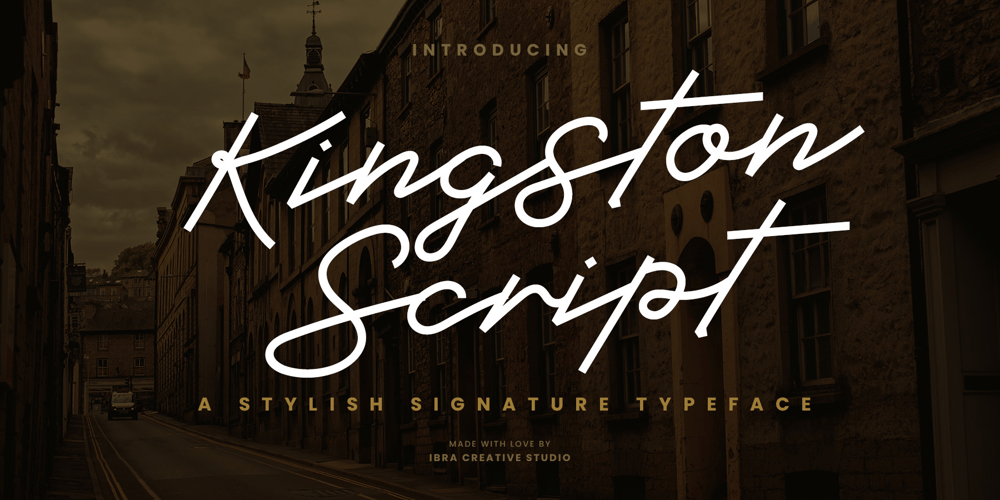
Kingston Script
Kingston Script font
Kingston Script Font Family was designed by Roisatul Azizah and published by IbraCreative. Kingston Script contains 1 styles and family package options. Kingston Script is a sophisticated and stylish signature typeface that exudes elegance and refinement. Each letter in Kingston Script flows seamlessly, mirroring the grace and precision of a personalized signature, making it perfect for luxury branding, high-end invitations, and exclusive product packaging. The delicate curves and fine details of this typeface create an air of sophistication, while its versatility allows it to effortlessly adapt to a variety of upscale projects. Kingston Script adds an element of class and distinction to any design, making it the epitome of a stylish signature font.